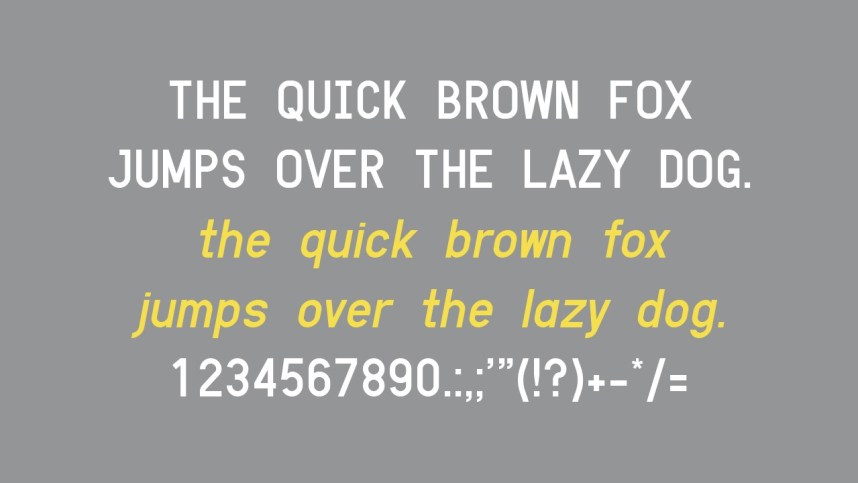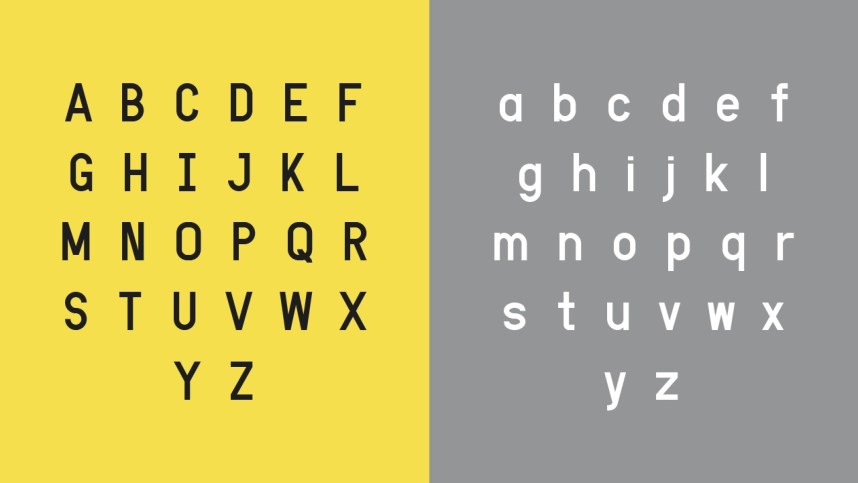
Lambda Font
Lambda Sans Serif Font
It’s a free minimalist sans serif font created by GGBotNet with simple, clean and visual elegance. A very versatile font that works in both large and small sizes. This font is suitable for a wide variety of projects such as headlines, logos, labels, branding projects, magazines, homeware designs, product packaging, mugs, quotes, posters, and more.